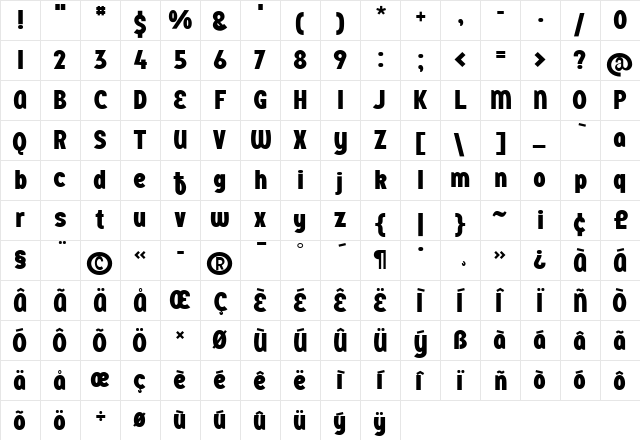
SisterBlack Regular
| Foundry | \ Gareth Hague |
Design Context for SisterBlack Typeface
SisterBlack offers clean, dependable letterforms without strong stylistic allegiance, making it a practical choice for designers who need flexibility.